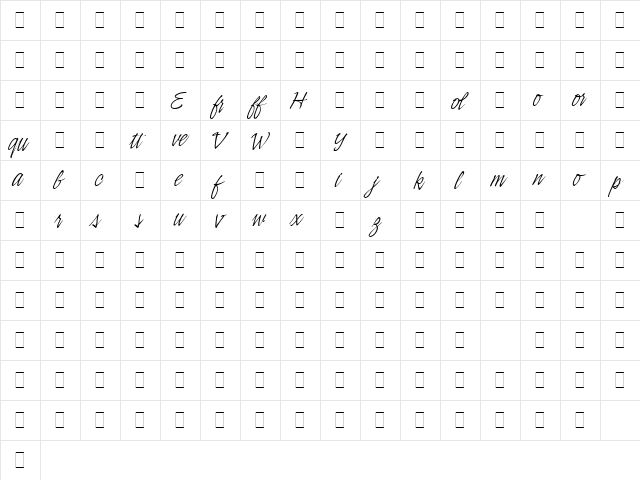
Indy Italic Alt LET Plain
Design Context for Indy Italic Alt LET Typeface
Indy Italic Alt LET takes a measured approach to typography — its balanced proportions and neutral character make it a reliable workhorse for both digital and print work. Its italic angle brings a sense of urgency and motion to the letterforms.
Pro Tip: Try Indy Italic Alt LET for annotation and caption copy alongside an upright companion — the contrast in angle creates a dynamic but ordered typographic system.